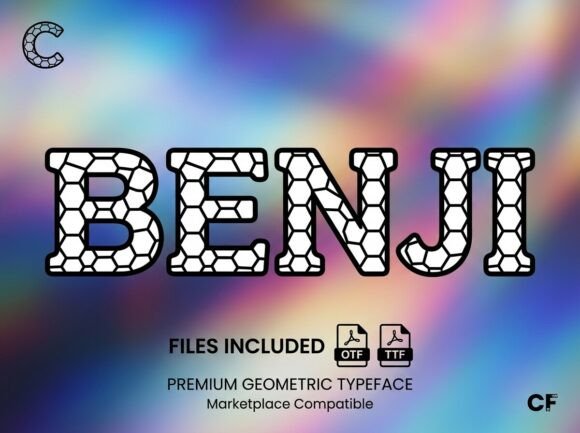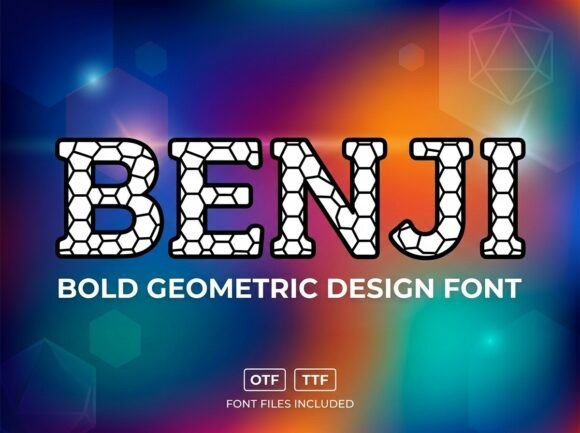
Introducing Benji Font: A Stunning Decorative Display Font
Are you tired of using the same old fonts for your designs? Look no further than Benji Font, a unique and artistic display font that’s sure to turn heads. With its strong visual personality and decorative elements, this font is perfect for creators who want to add a touch of elegance and sophistication to their work.
What Makes Benji Font Special?
Benji Font is a decorative display font designed to be the center of attention. Its unique artistic elements and strong visual personality make it perfect for bold headlines, artistic logos, and creative packaging. Whether you’re a designer, crafty DIY enthusiast, or simply someone who loves to create, this font is sure to inspire your next project.
Key Features of Benji Font
- Unique Artistic Elements: Benji Font features intricate and decorative elements that add a touch of elegance to any design.
- Strong Visual Personality: This font has a bold and eye-catching personality that’s sure to grab attention.
- Versatile: Benji Font is perfect for a variety of design projects, including bold headlines, artistic logos, and creative packaging.
- Professional and Polished Finish: Despite its decorative nature, Benji Font maintains a professional and polished finish that’s suitable for any design project.
⚠️ IMPORTANT NOTE BEFORE PURCHASE: Benji Font is an ALL-CAPS (Uppercase Only) display typeface. It does not include lowercase letters. It is specifically designed for high-impact headlines, logos, and decorative initials where every letter is a work of art.
Who is Benji Font For?
Benji Font is perfect for:
- Designers: If you’re a graphic designer, you know how important it is to have a wide range of fonts at your disposal. Benji Font is a great addition to any designer’s collection.
- Crafty DIY Enthusiasts: If you love to craft and create, Benji Font is a great way to add a professional touch to your projects.
- Small Business Owners: If you’re looking for a unique and eye-catching font for your branding, Benji Font is a great choice.
How to Use Benji Font
- Use it for Headlines: Benji Font is perfect for bold headlines and titles.
- Create Artistic Logos: With its unique artistic elements, Benji Font is perfect for creating artistic logos and branding materials.
- Add a Touch of Elegance to Your Packaging: Benji Font is a great way to add a touch of elegance and sophistication to your packaging designs.
Benji Font is a stunning decorative display font that’s sure to add a touch of elegance and sophistication to any design project. With its unique artistic elements, strong visual personality, and versatility, this font is perfect for designers, crafty DIY enthusiasts, and small business owners. So why wait? Purchase Benji Font today and take your designs to the next level!